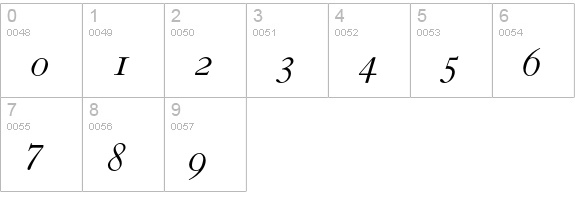
CaslonC37-LightItalicAlternates Font Details
CaslonC37-LightItalicAlternates is a graceful and sophisticated font that exudes elegance and style. Its delicate italic style adds a touch of finesse to any design project, making it perfect for conveying a sense of refinement and sophistication. The alternate characters in this font provide additional versatility and creativity, allowing you to create unique and distinctive designs. This font is a must-have for designers looking to add a touch of class to their projects. Whether you are working on invitations, branding materials, or any other design project that requires a touch of sophistication, CaslonC37-LightItalicAlternates is the perfect choice. Best of all, this font is available for free download at FontsMarket.com. Take advantage of this amazing offer and elevate your designs with the timeless elegance of CaslonC37-LightItalicAlternates. Download now and start creating stunning designs today!